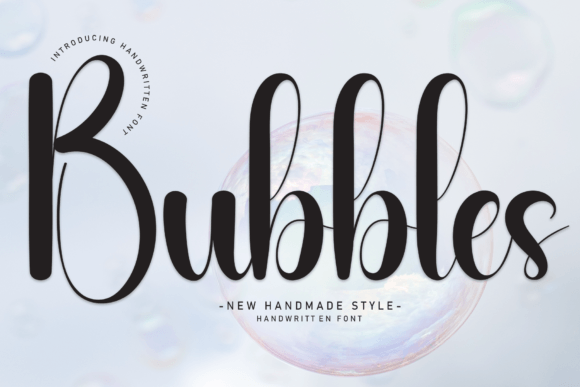
Behold, Bubbles Font - a whimsical and awe-inspiring journey into the realm of script fonts! Created by the ingenious William Jhody, this font is a testament to meticulous craftsmanship and boundless imagination.
Bubbles Font - An Ode to Joyful Expression!
Adorn your designs with a touch of playful elegance with Bubbles Font, a beautiful script font that exudes an aura of lightheartedness and cheer. Inspired by the effervescent joy of childhood, this font is akin to a dance of delicate bubbles, each letter a tiny burst of happiness. Be it a whimsical wedding invitation, a heartfelt greeting card, or a quirky social media post, Bubbles Font dances across the page with infectious enthusiasm, leaving a trail of smiles in its wake.
Dive into the Enchanting World of Bubbles Font!
Dive into the captivating world of Bubbles Font and unleash your creativity like never before. Its meticulously crafted curves and whimsical strokes evoke a sense of nostalgia, reminiscent of handwritten letters exchanged between dear friends. Seamlessly blending charm with legibility, Bubbles Font effortlessly elevates your designs, adding a touch of warmth and personality to every project. Embrace the enchanting allure of Bubbles Font and witness your creations come alive with an unforgettable allure.
Bubbles Font - A Symphony for Your Artistic Soul!
Compose a symphony of visual delight with Bubbles Font, a symphony that echoes the rhythm of your imagination. Effortlessly glide through your design projects, guided by the font's graceful flow. Let your words dance, infusing your designs with a symphony of elegance and charm. Experience the joy of effortless creativity as Bubbles Font becomes your trusted muse, transforming ordinary words into extraordinary works of art.